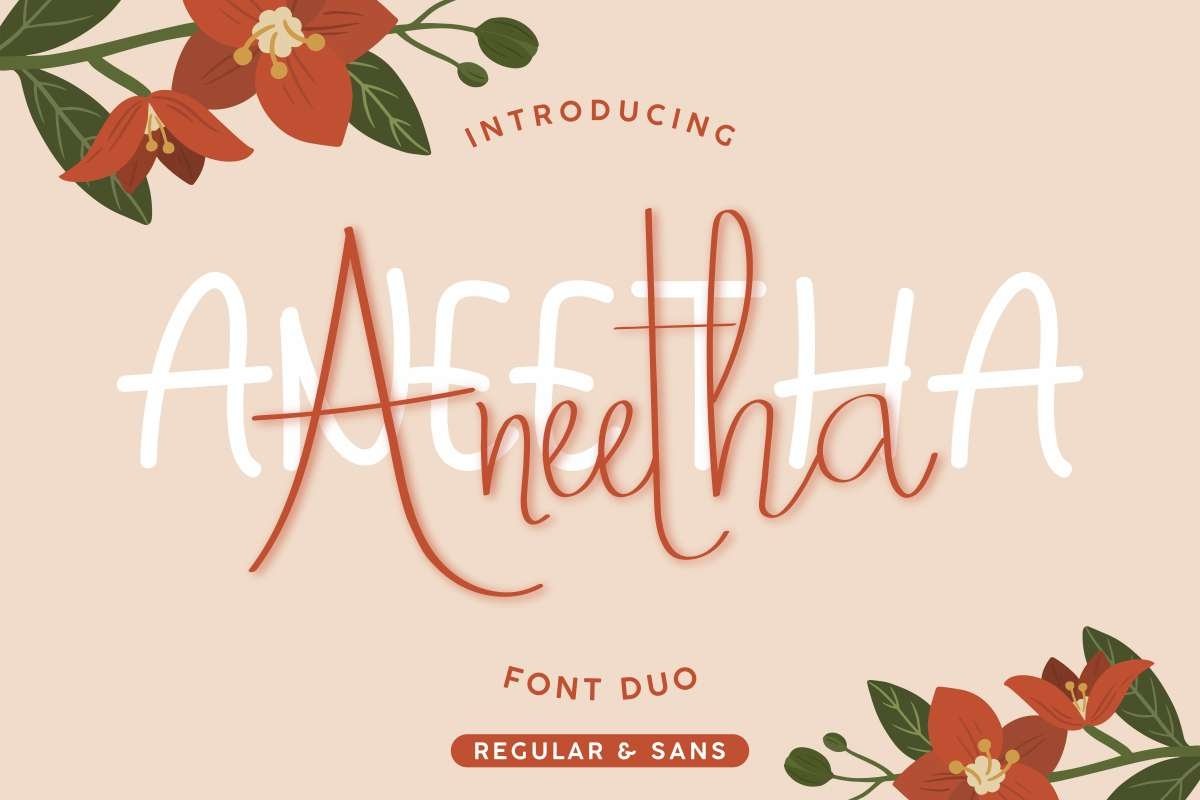
Aneetha
AneethaSans
AneethaRegular
Aneetha-Sans
Aneetha
Hola Everyone!!This is us again. Edric Studio. We are presenting to you : Aneetha Font Duo .This is a font duo, contains two different styles : Sans and Script. All of Aneetha Font Duo styles will be awesome for any designs works. Works well for many industry clients : Music, law firm, lawyer, makeup artist, dentist, wedding, finance, etcThis font can be used branding , logotype, stationery, card, signage, flyer, brochure etc.  On the full file package You will get: